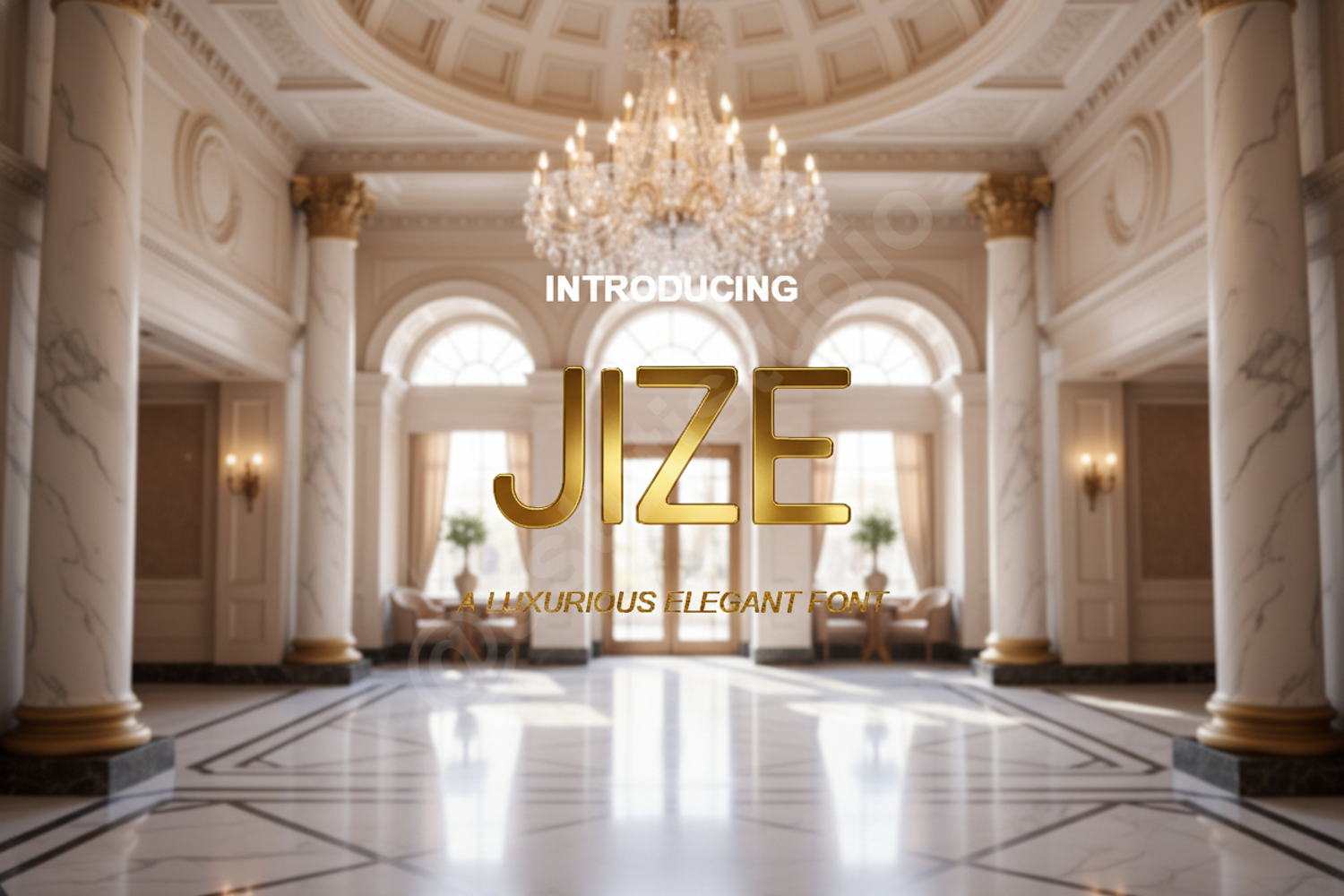
Jize - Modern & Minimalist Sans Serif Display Font
Jize
Elevate your design projects with Jize, a premium sans-serif font designed for modern aesthetics and high-end versatility. Jize combines clean lines with a sophisticated structure, making it a perfect choice for designers seeking a balance between minimalism and visual impact. Its balanced proportions ensure readability while maintaining a unique, contemporary character.
- Professional Branding and Identity Systems
- Minimalist Logo Design and Wordmarks
- High-end Editorial Layouts and Magazine Spreads
- Clean Social Media Graphics and Digital Advertisements
- Sleek Website Headers and User Interface Design
- Modern Product Packaging and Luxury Labels